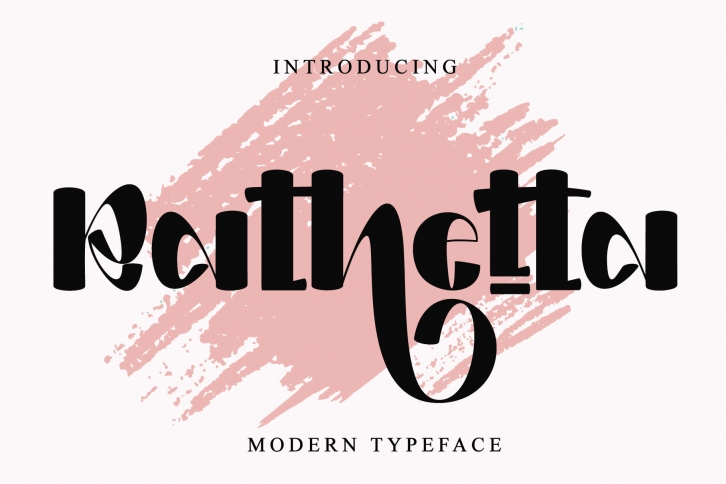
Rathetta is elegantly crafted, classy and absolutely gorgeous display font.
Rathetta is suitable for designs, logos, greeting cards, posters, invitations, and branding. This font is PUA encoded which means you can access all of the glyphs and swashes with ease!Â